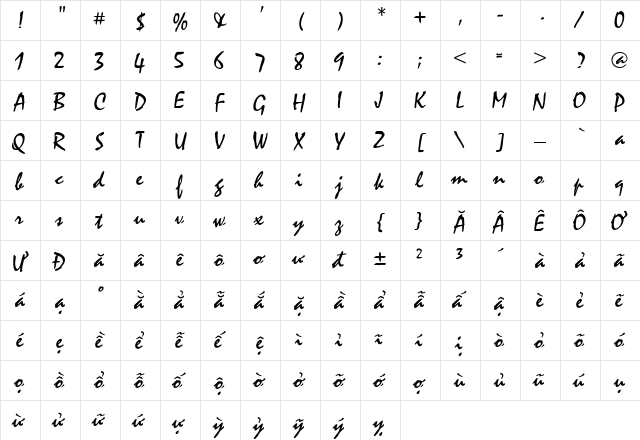
.VnMystical Regular Font Preview
.VnMystical Regular
.VnMystical Regular Font Details
Design Context for .VnMystical Typeface
.VnMystical is a composed and adaptable typeface that performs quietly and consistently across a wide range of design contexts.